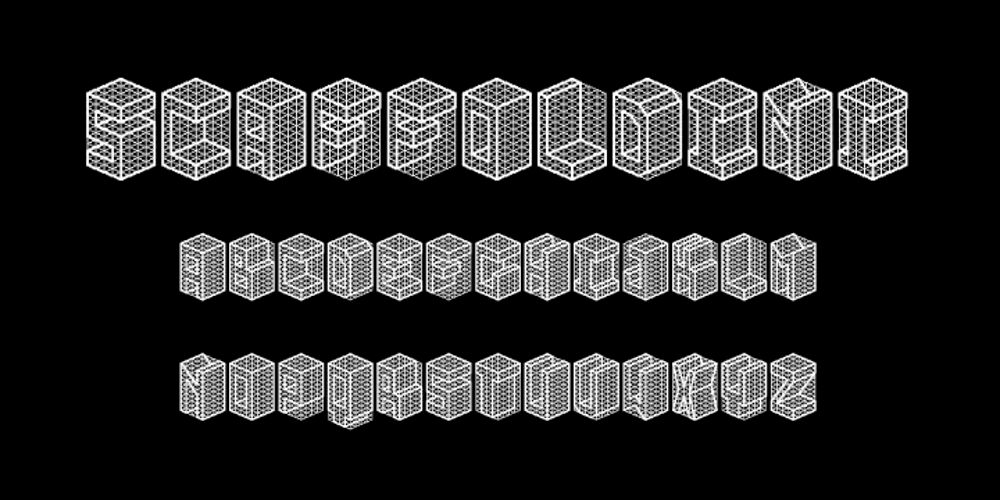
Scaffoldini Font Family was designed by Wilson Thomas and published by Funk King. Scaffoldini contains 4 styles and family package options. The Scaffoldini Family provides four different isometric perspectives and is suitable in use in science, engineering and sci-fi themed projects or however you see fit. The lines are formed by bubbles (or circle bricks in Fontstruct) and appear smoother the smaller the size of the type. These are not straight line segments and the gylphs will appear bubbly (scalloped edges) at larger size. Please be aware of this feature of the font before you purchase.